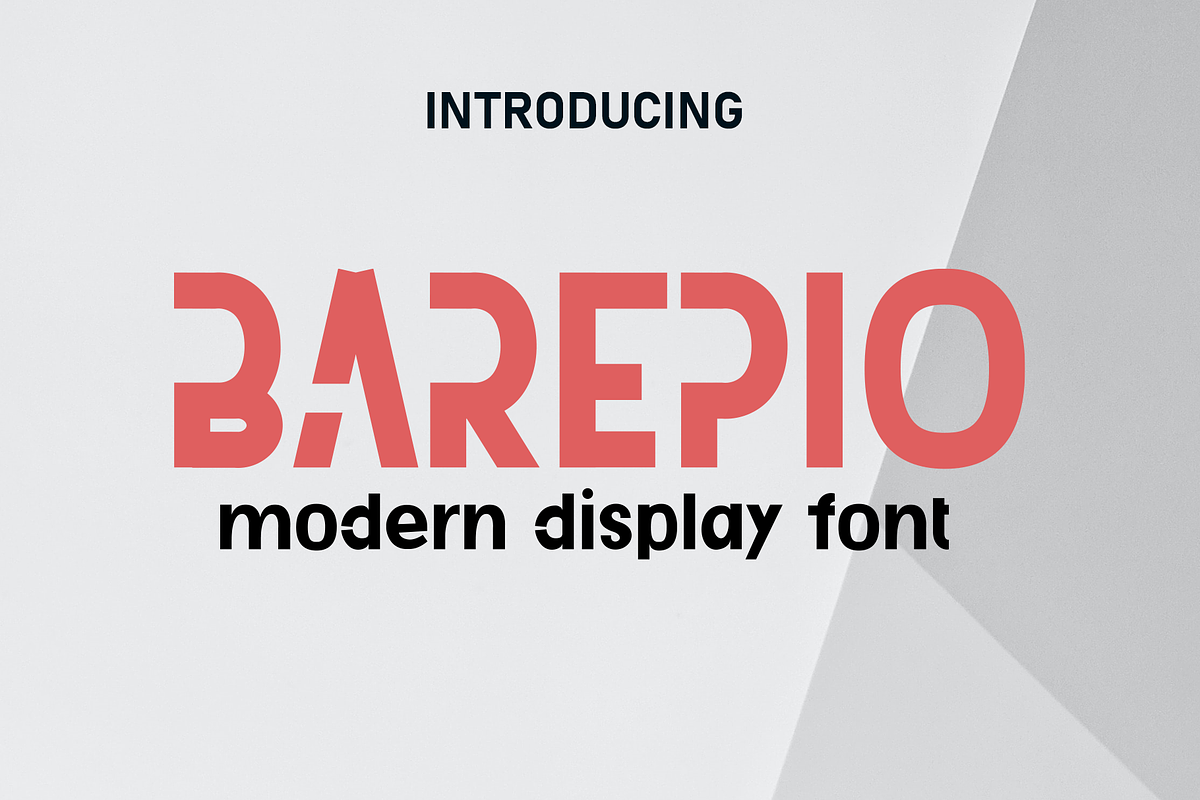
Bold, stylish, and attention-grabbing, Barepio - Display Font Free Download is a striking typeface designed to make a statement. Perfect for logos, posters, headlines, and branding projects, this font combines modern geometric shapes with a strong, unique design that stands out in any layout.
Its high-impact letterforms and versatile design make Barepio an ideal choice for creative projects that need a bit of flair and boldness. Whether you're creating a modern brand identity or a high-energy marketing campaign, Barepio adds strength and character to your typography.